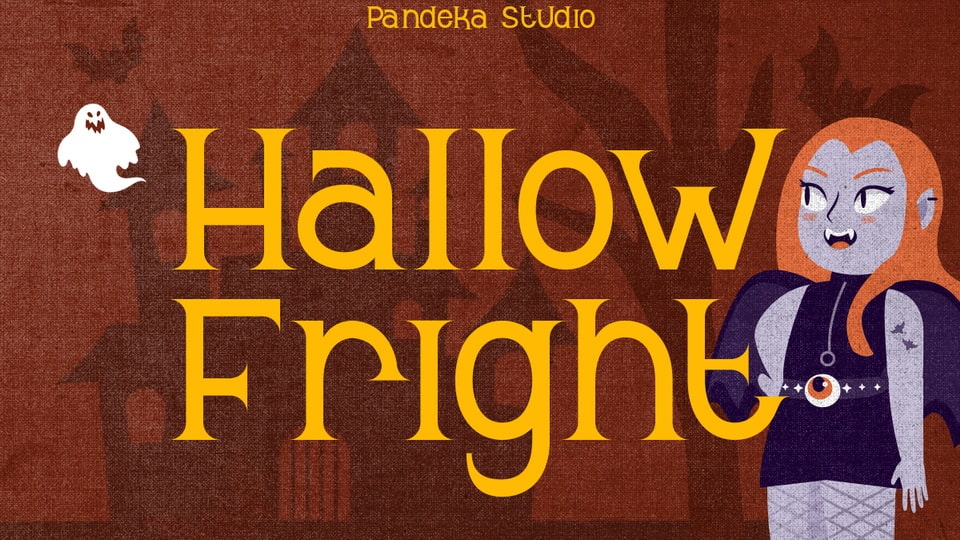
Download Hallow Fright font, a spooky and playful display typeface, perfect for all your Halloween-themed designs. With its quirky shapes and eerie vibe, this typeface instantly sets the mood for parties